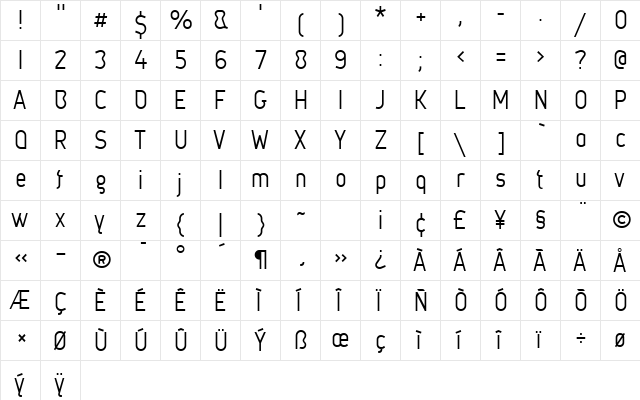
MetsysLight Regular
Design Context for MetsysLight Typeface
MetsysLight offers clean, dependable letterforms without strong stylistic allegiance, making it a practical choice for designers who need flexibility. The delicate stroke weight brings airiness and refinement to layouts.